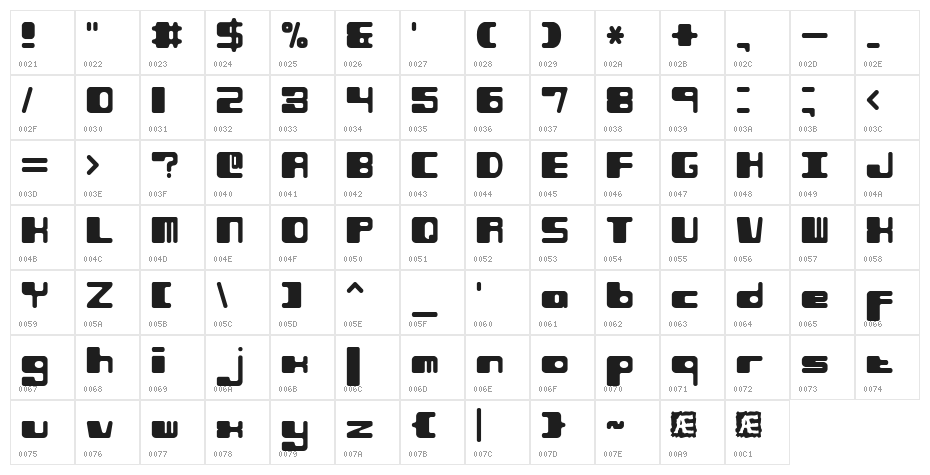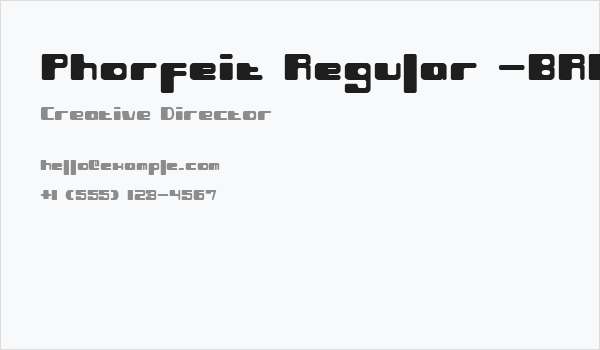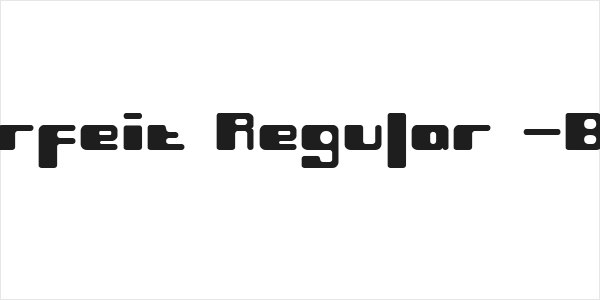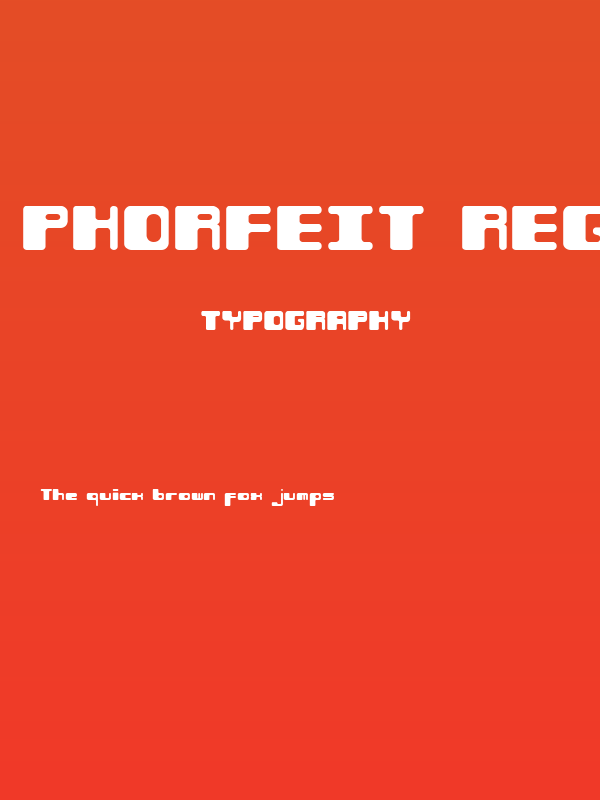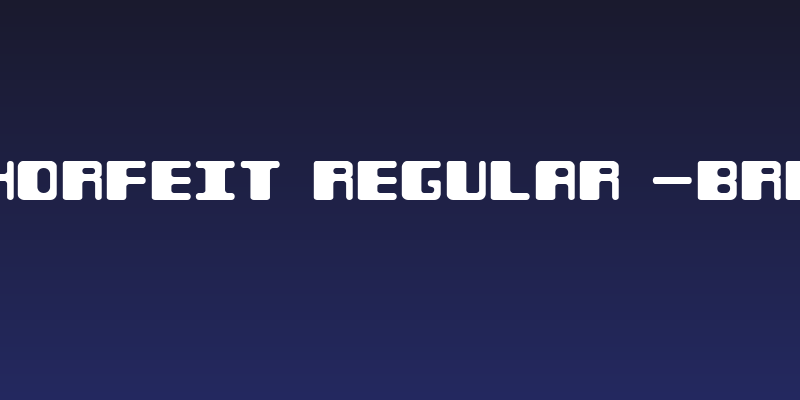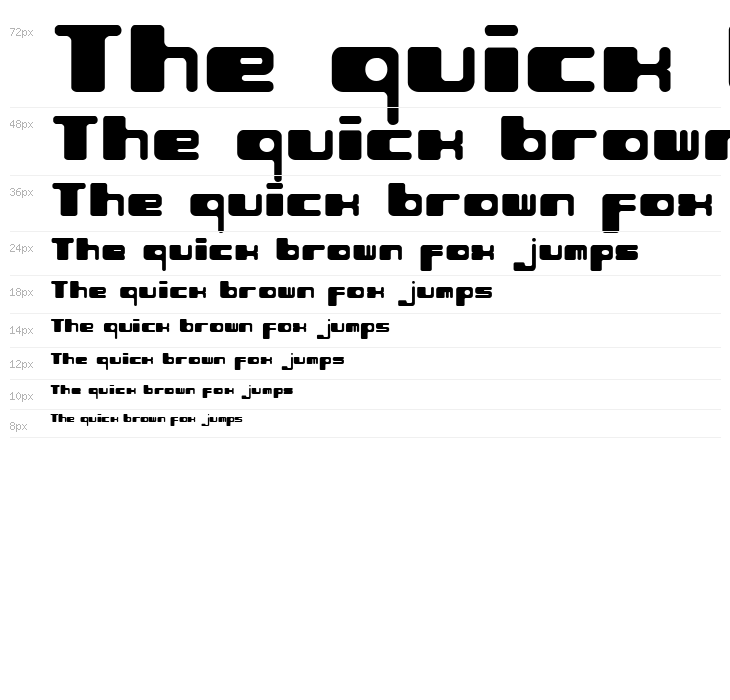
Phorfeit Regular -BRK- Font
Phorfeit Regular -BRK- Description
This font features a bold and playful design with a distinctly modern and geometric aesthetic. The characters are blocky and robust, with rounded edges that give them a friendly and approachable feel. The uppercase and lowercase letters maintain a consistent style, with some unique variations in the lowercase set that add character and interest. The numerals are equally bold, ensuring they stand out clearly. Special characters are included, matching the overall style with a quirky and distinctive flair. The font's design is well-suited for creative and eye-catching projects, offering a strong visual impact.
| Proposed Projects | Ideal for posters, logos, branding, and any project needing a bold, modern touch. |